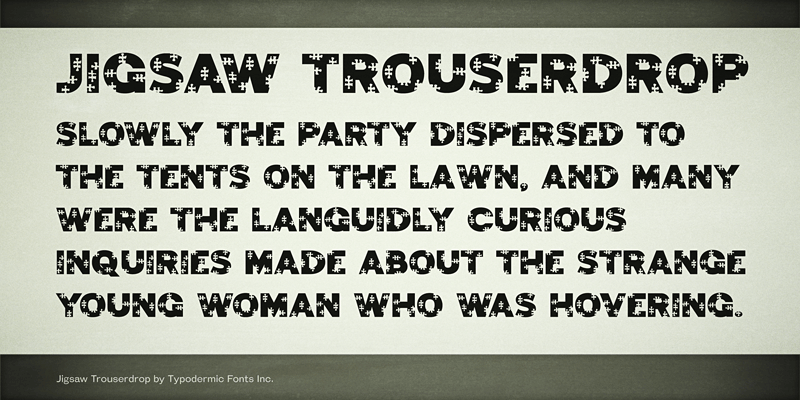
Preview and download Jigsaw Trouserdrop Font. Created by Typodermic Fonts in Fancy Decorative styles with 100% Free license.
Jigsaw Trouserdrop is a sans-serif scarehead font with a jigsaw puzzle theme. This font includes a license that allows free commercial use: sometimes referred to as a desktop license. This allows you to install the font on a computer and use it to create posters, web graphics, game graphics, t-shirts, videos, signs, logos and more. Read the license agreement for details. If you'd like to embed this font in an app, ebook, on the web or anything that's not covered by the desktop license agreement, visit the link below. You'll find distributors who offer different types of licenses or you can contact me for help. http://typodermicfonts.com/jigsaw-trouserdrop/ |